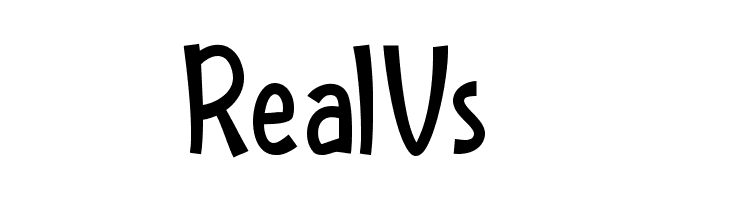
A bold, dynamic brush script font with energetic strokes and expressive flair.
A bold, playful font with exaggerated curves and dynamic styling.
A bold, three-dimensional font with a retro, blocky style and shadow effects.
A bold, three-dimensional font with dynamic shadow effects.
A classic, elegant script font with flowing, connected letters and bold strokes.
A playful, handwritten-style font with bold, rounded letterforms.
A bold, italicized font with a dynamic and energetic style.
A dynamic, playful handwritten font with smooth, slanted letterforms.
A bold, expressive brush-style font with dynamic, hand-painted strokes.
A bold, cursive font with elegant curves and expressive flourishes.
A bold, elegant script font with flowing curves and high contrast.
A bold, expressive script font with elegant curves and fluid connections.
A lively handwritten font with fluid strokes and a casual style.
A bold, playful script font with a handwritten feel.
A playful, handwritten script font with a lively and dynamic style.
Hand-drawn school-themed dingbat illustrations.
A futuristic, geometric font with bold, angular letterforms.
A bold, outlined, and condensed font with a strong visual impact.
Bold, angular font with sharp serifs and a vintage-modern appeal.
A bold, expressive handwritten font with fluid strokes.
A bold, hand-drawn font with a slightly condensed style and artistic flair.
A dynamic and flowing script font with elegant, cursive letterforms.
A bold, handwritten font with a playful and dynamic style.
A bold, italicized, and playful handwritten font with rounded strokes.
A playful, handwritten-style italic font with smooth, fluid strokes.
A bold, expressive handwritten font with fluid strokes and a playful style.
A bold, dynamic script font with smooth curves and strong presence.
A playful, hand-drawn font with whimsical and bold letterforms.
A bold, brush-style script font with dynamic, flowing letterforms.